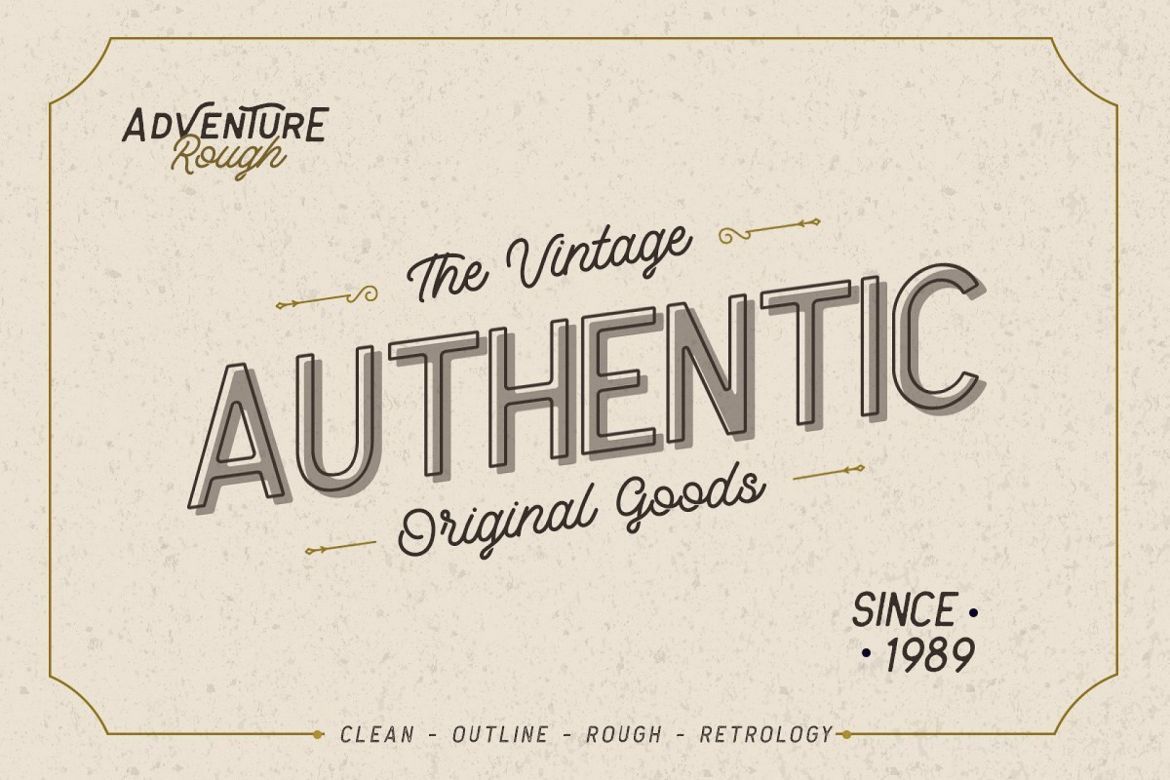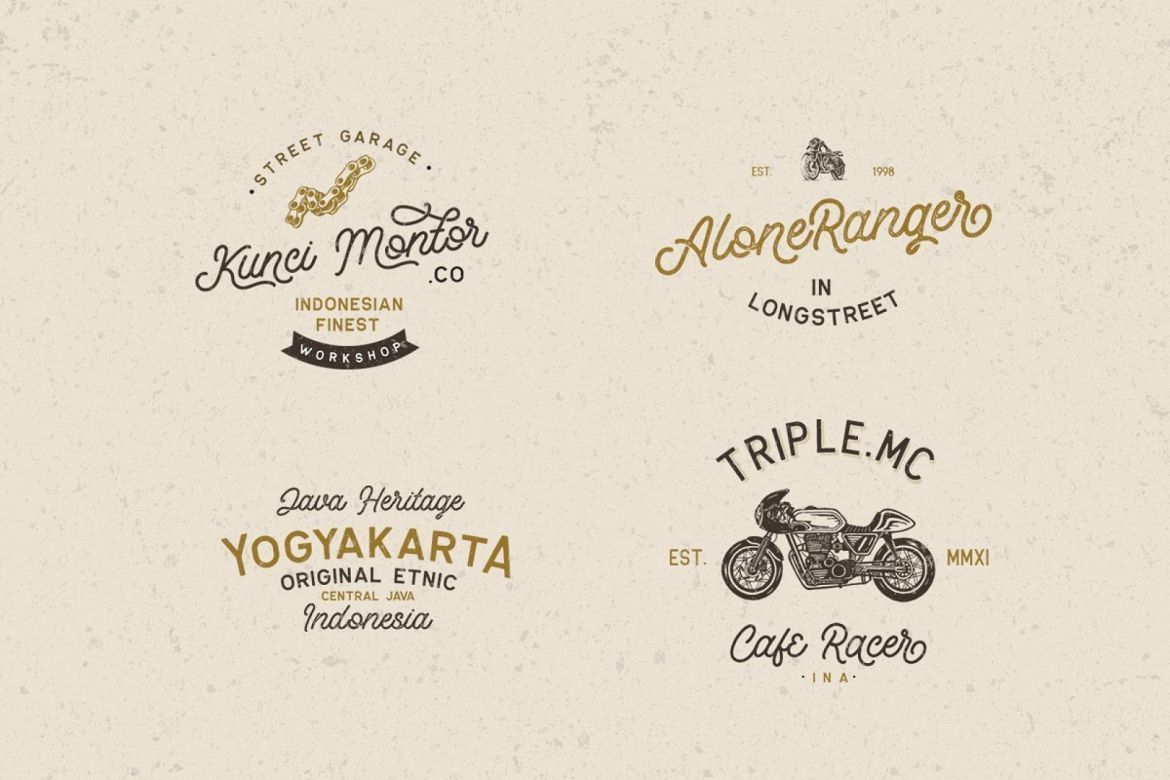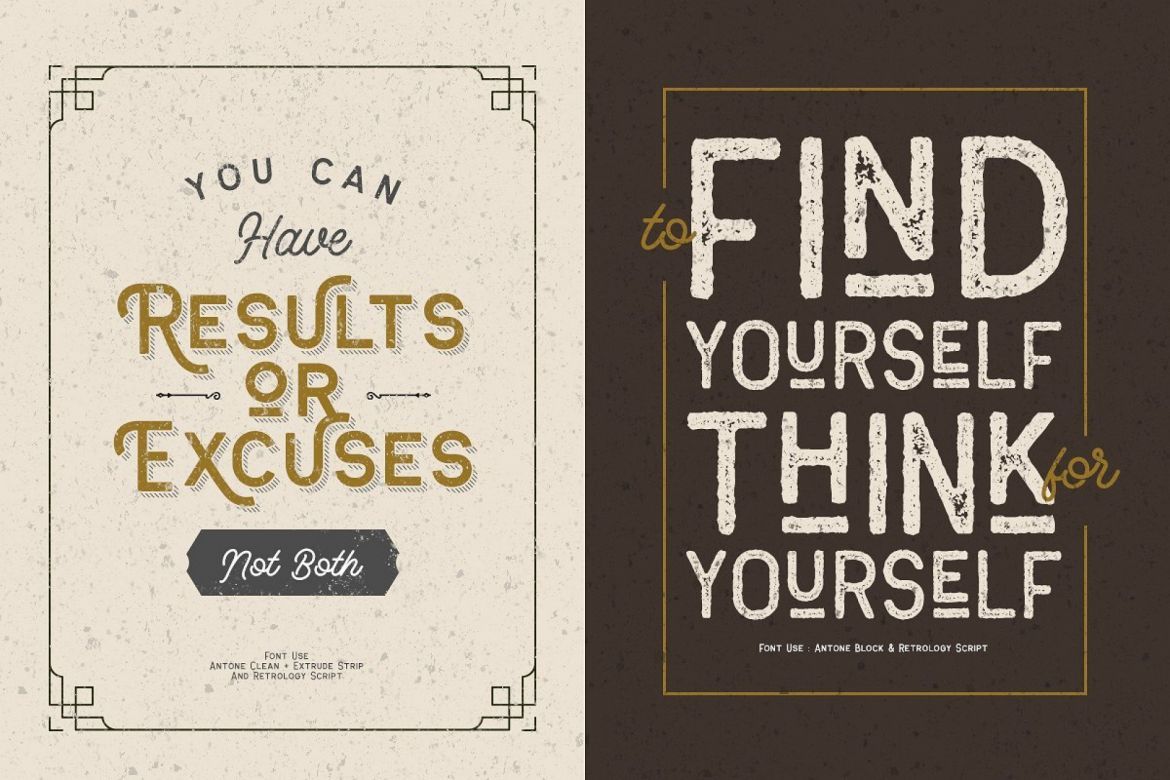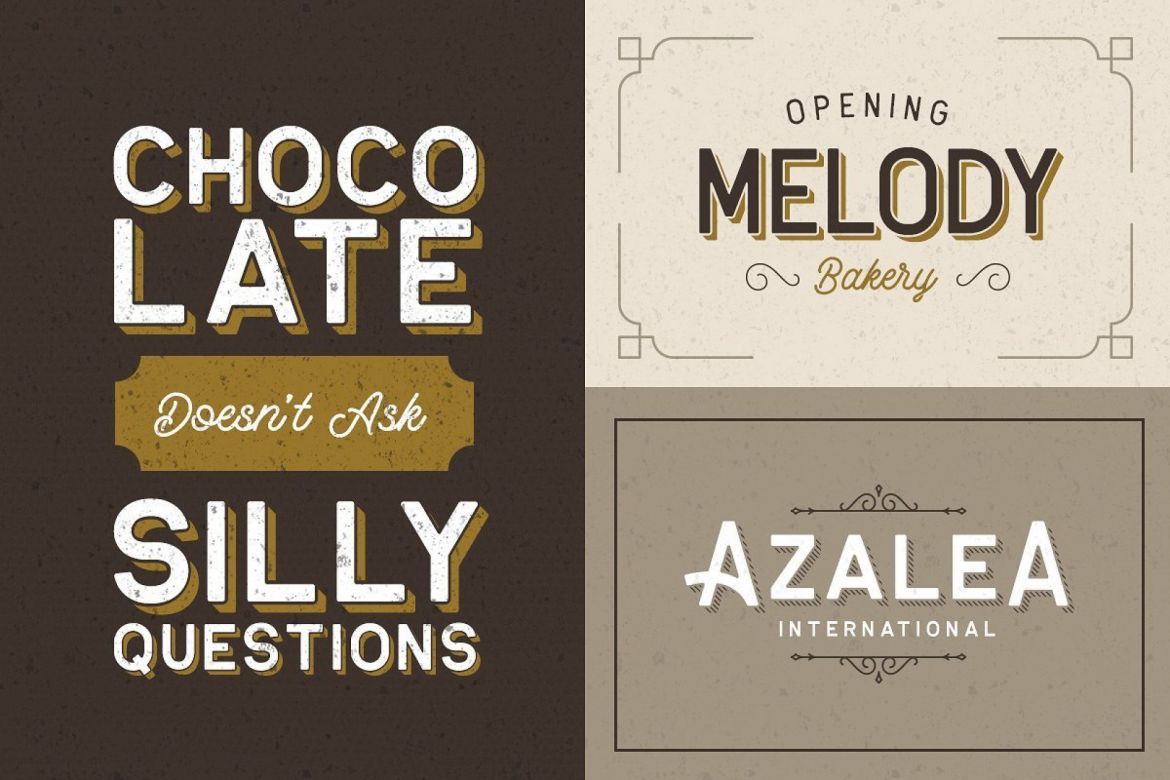
Antone Font Family
• the characters from the clean version of this font are bold, strong, but elegant.
• this font is perfect for use as a partner with retrology